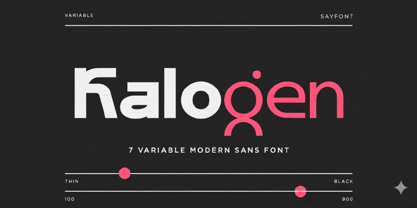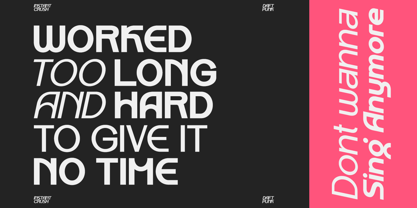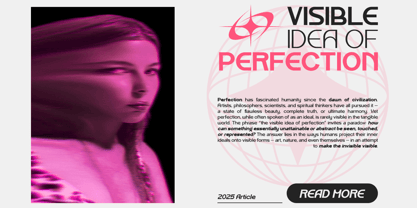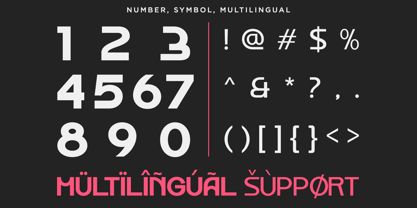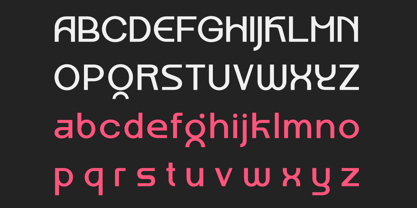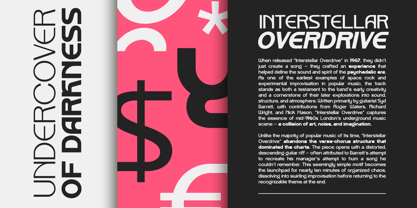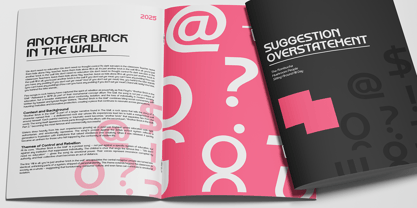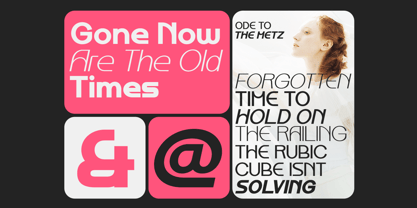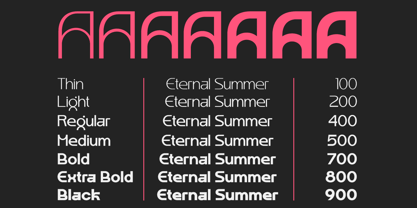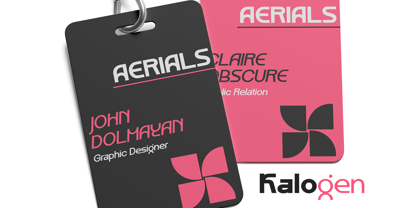
Kalogen
The Kalogen Font Family was designed by Nur Rohman and published by Sayfont. Kalogen contains 14 styles and family package options. More about this family
Kalogen is a variable modern sans font with 7 weights. Aesthetically pleasing sans serif font that combines geometric and humanist elements, delivering simplicity and versatility ideal for a wide range of projects with a timeless look. It’s perfect for creating impactful logos, eye-catching posters, social media graphics, fashion branding, and websites. Whats Included : - 7 Variable - Italic Version - Multilingual Support - Number, and Symbol Thanks, Have a nice day Sayfont